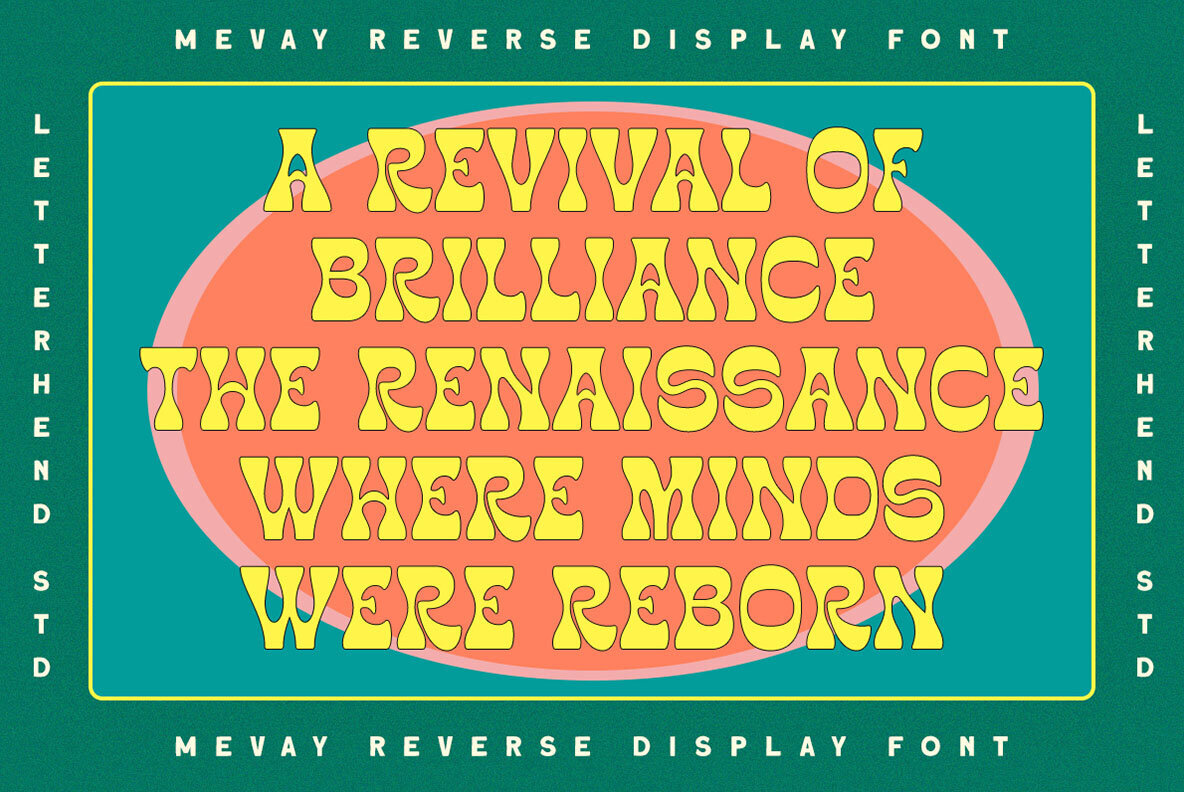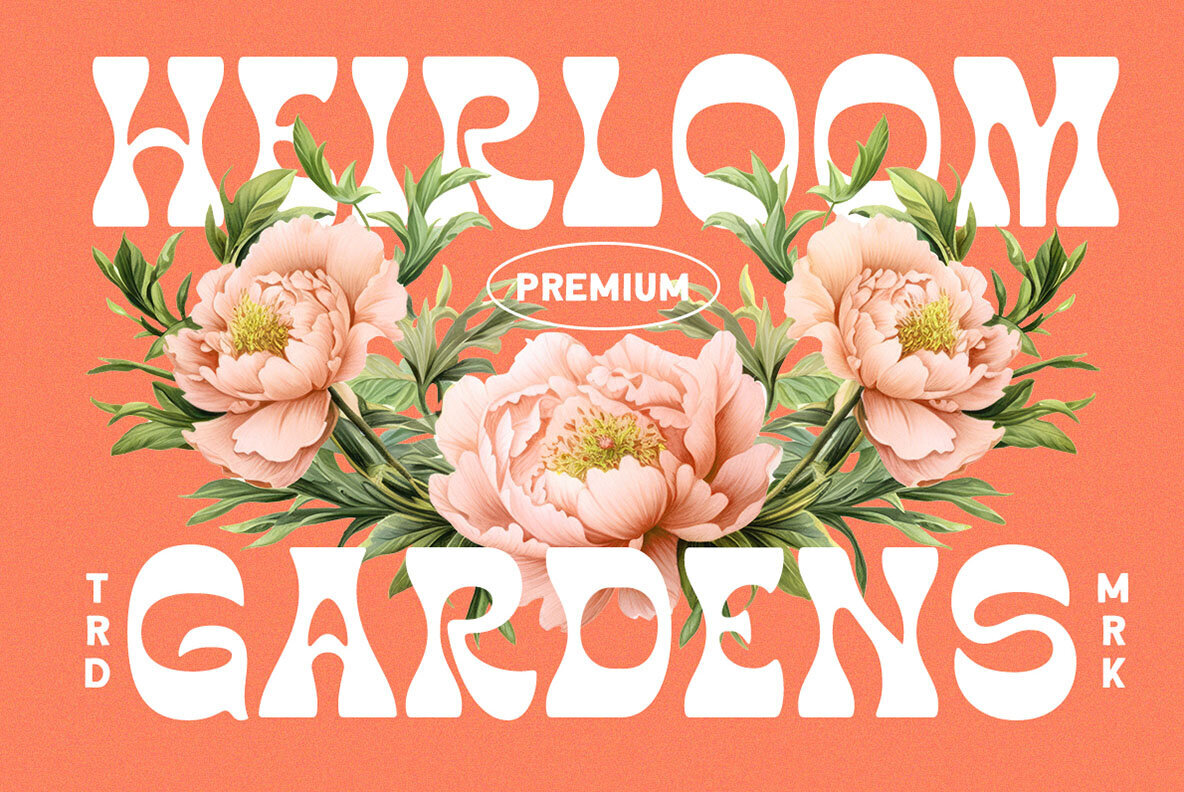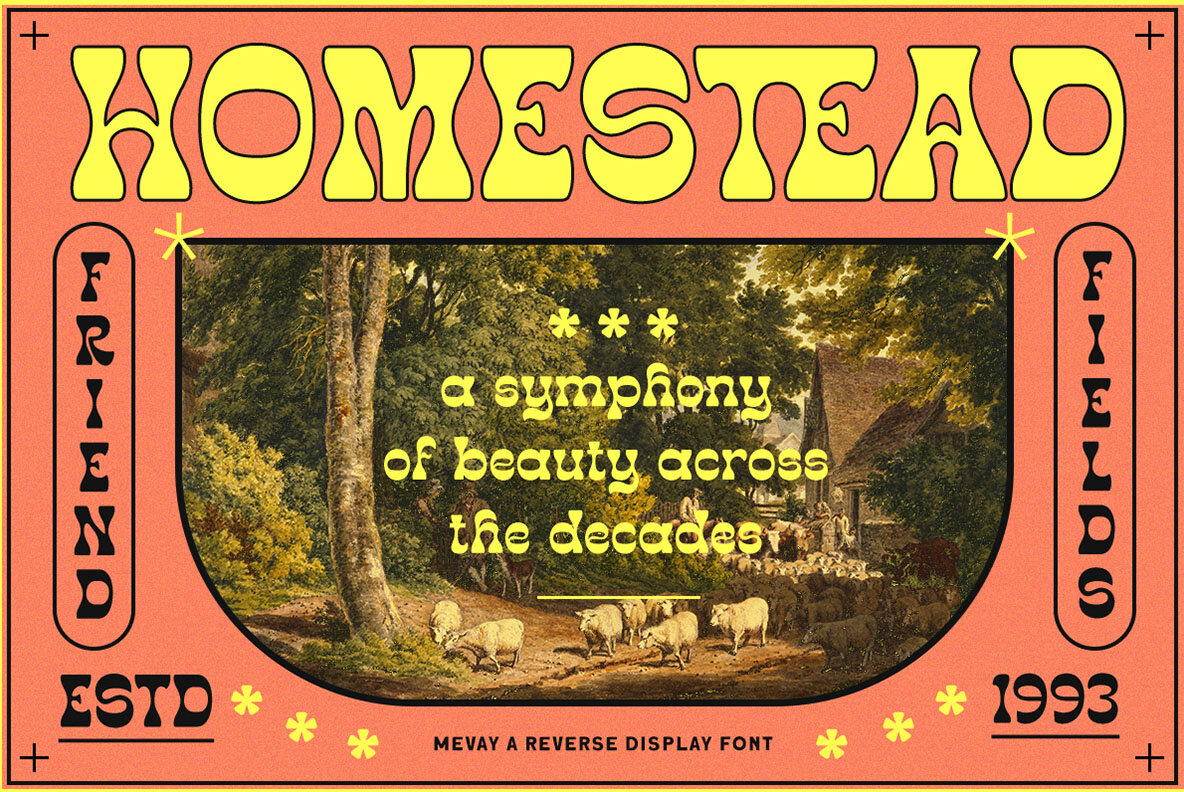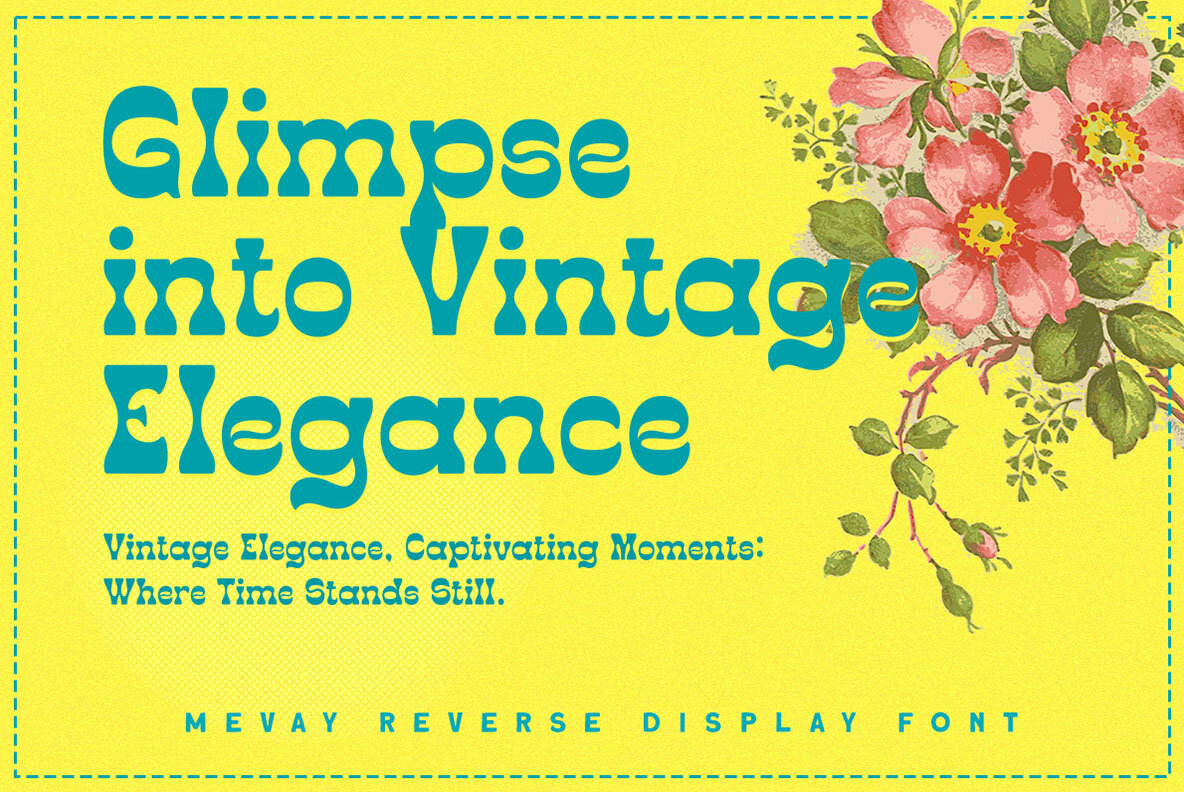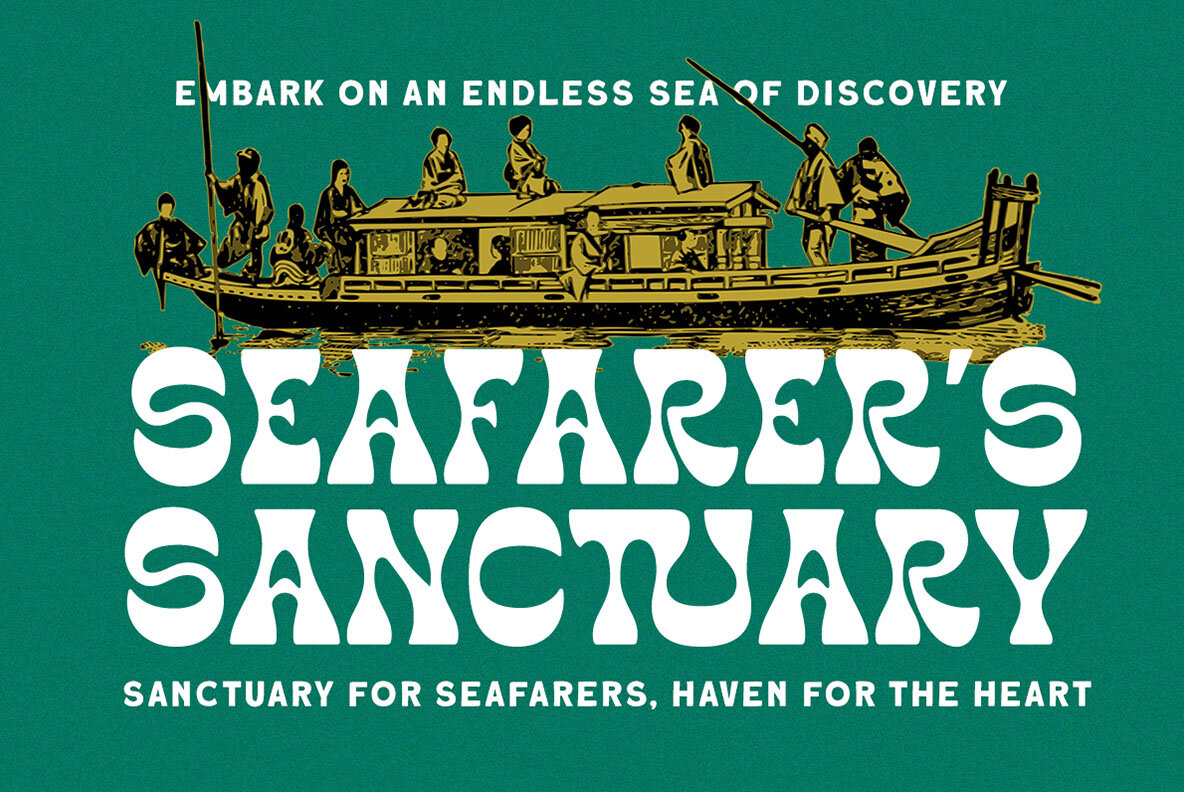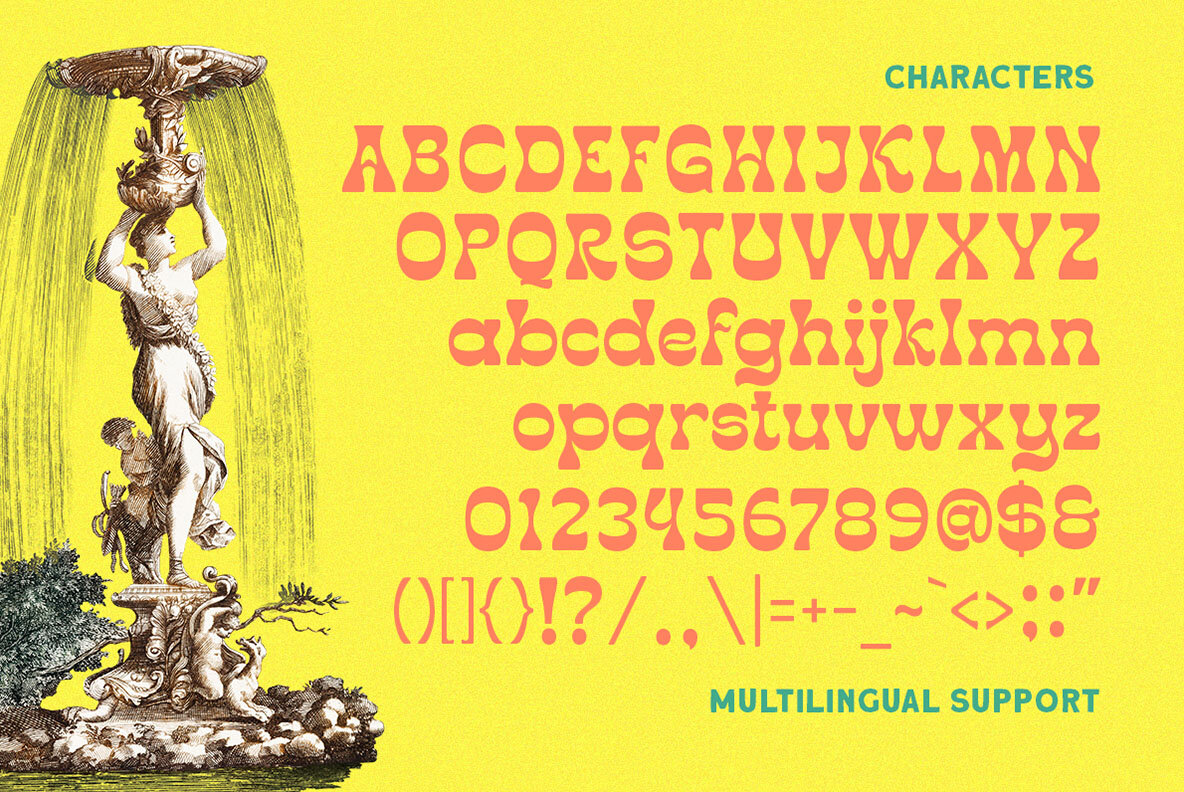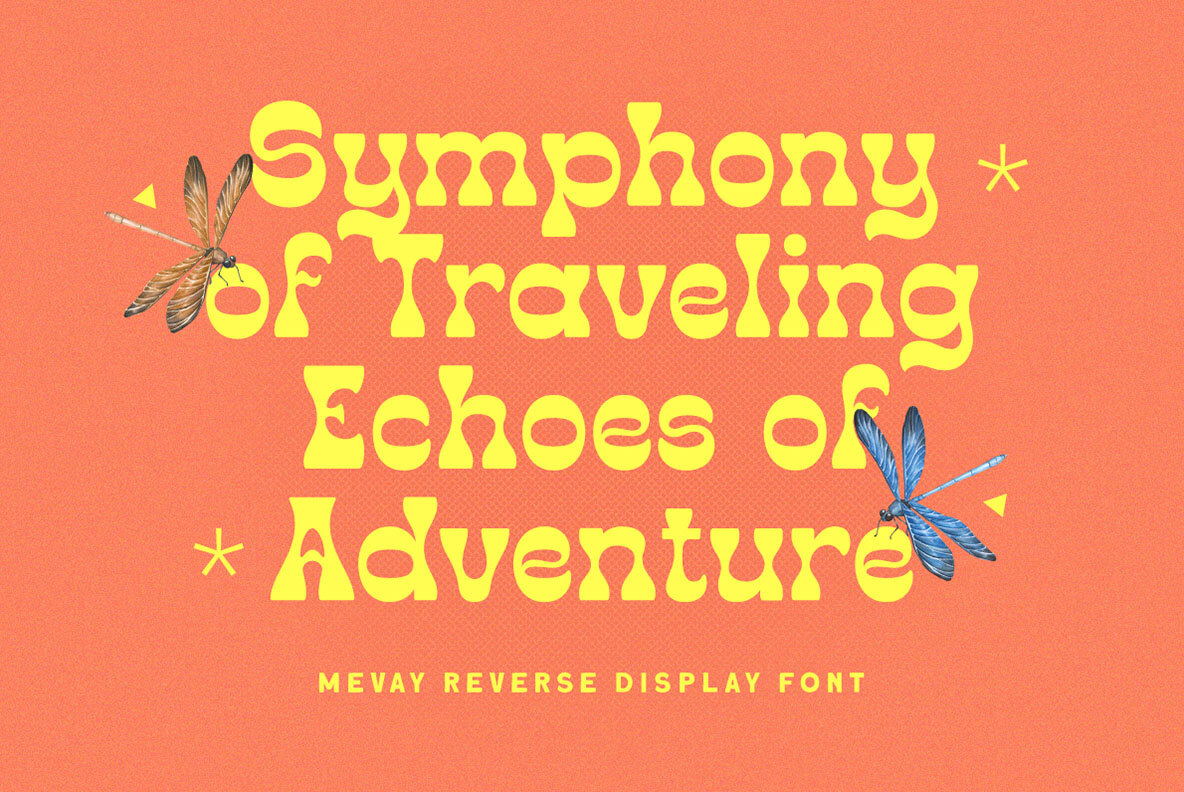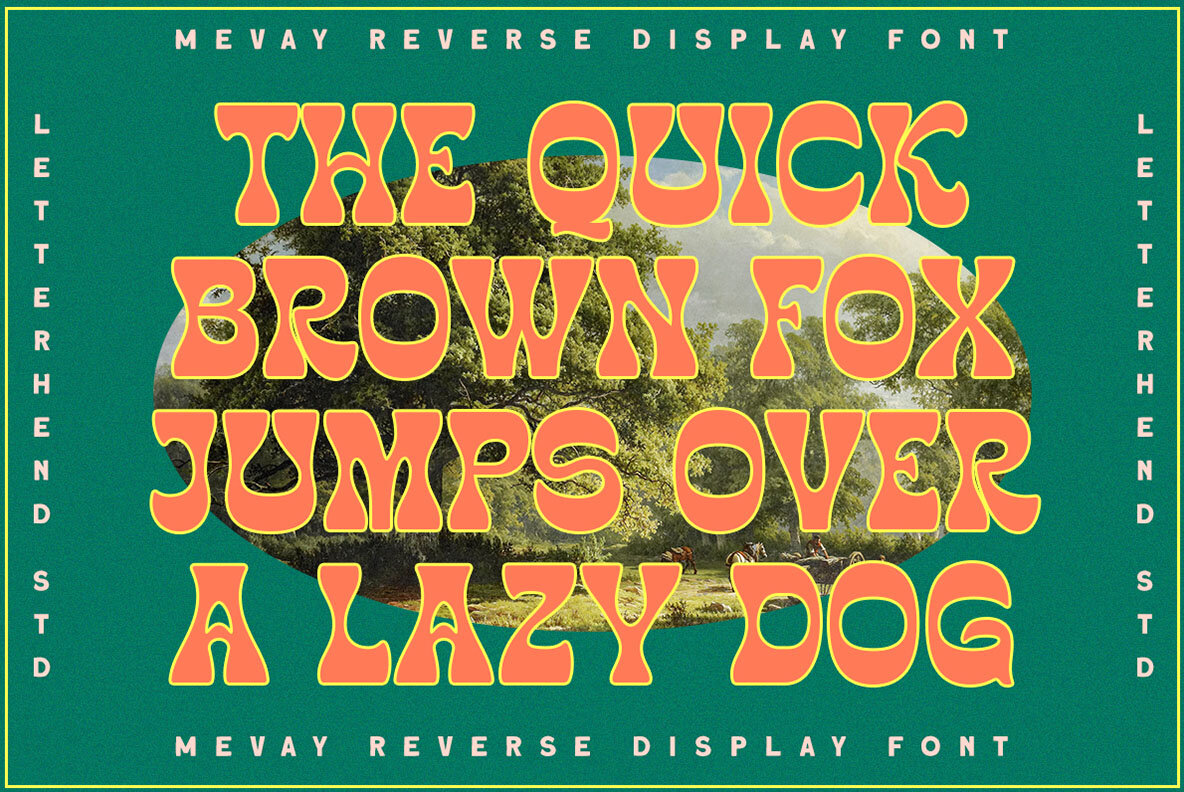
Nomadic Font
Nomadic Regular
Nomadic is a reverse display font that exudes a classic look. Ideal for children's storybooks or child-themed designs, Nomadic stands out with its distinctive style. Additionally, it is versatile enough for numerous formal applications, including invitations, labels, logos, magazines, books, greeting cards, wedding cards, packaging, fashion, makeup, stationery, novels, and various advertising needs. For the best experience, we recommend using software that supports OpenType features and Glyphs panels, such as many Adobe applications and Corel Draw, to fully access and utilize all the Glyph variations.Nomadic: A Classic Reverse Display Font